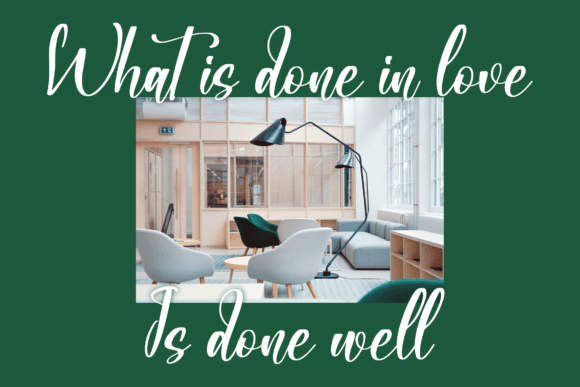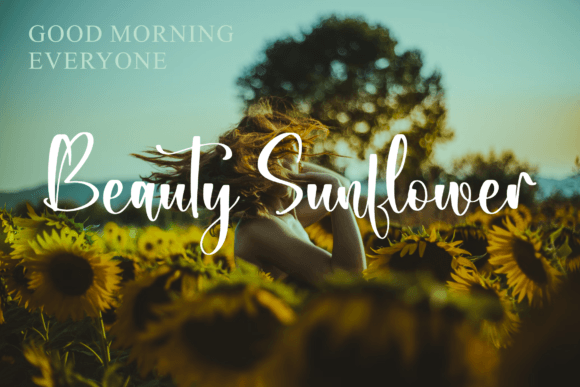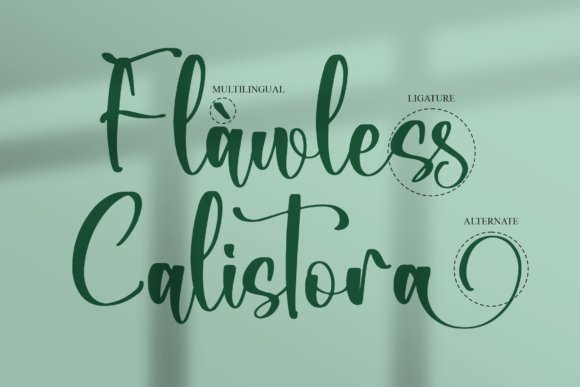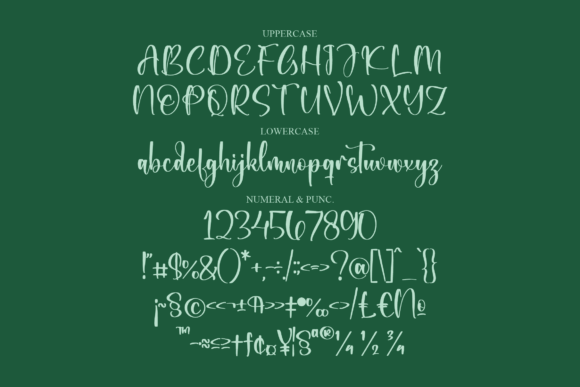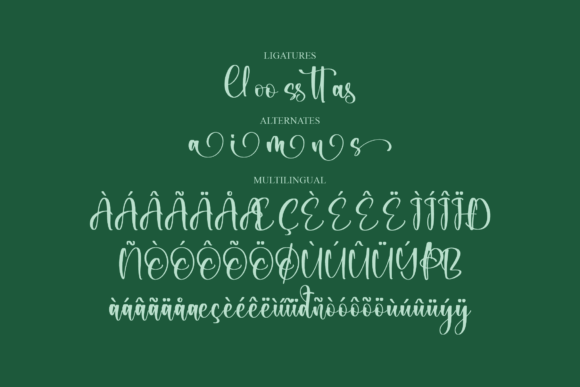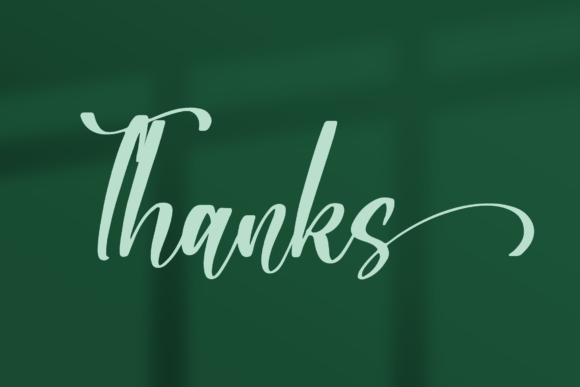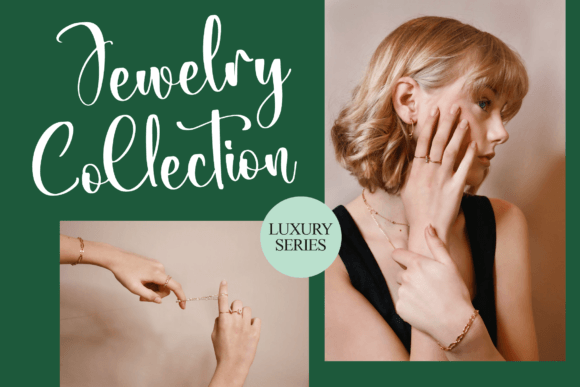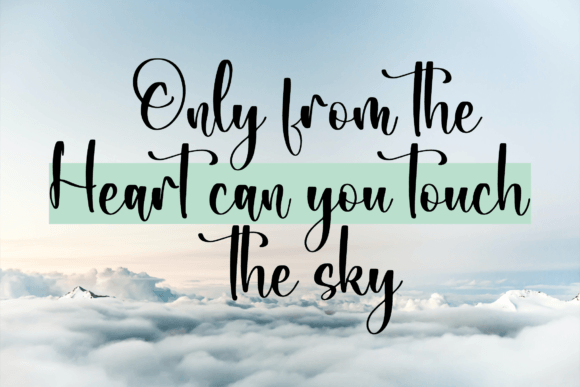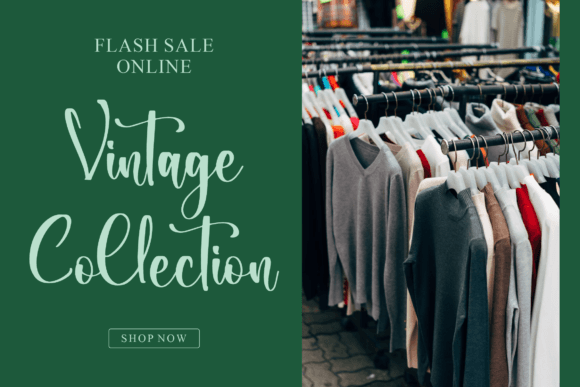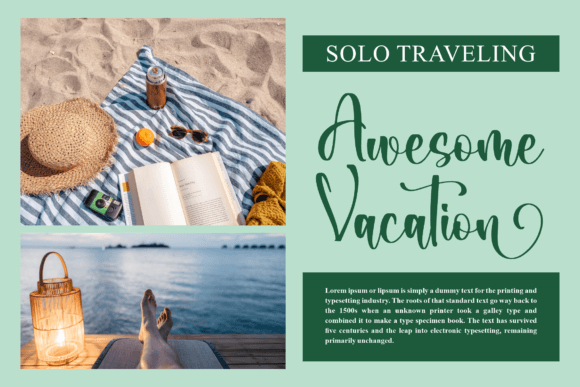
Calistora Font
About Calistora Font
“Calistora” is not just a font; it’s a modern and cool script font designed to bring a touch of beauty to a wide range of designs. This versatile typeface is perfect for projects that require a personalized and stylish flair, such as wedding invitations, thank-you cards, greeting cards, logos, and more.
The distinctive characteristics of “Calistora” make it a standout choice for various design applications. Its modern and cool script style adds a contemporary and fashionable touch to any project, ensuring that your designs are on-trend and visually appealing.
For wedding invitations, “Calistora” can bring a sense of elegance and sophistication, enhancing the overall aesthetic of the event. The font’s stylish script complements the celebratory nature of thank-you cards and greeting cards, adding a personal and chic touch to your messages.
In logo design, “Calistora” stands out by offering a unique and memorable visual identity. Its modern script style allows it to adapt to a wide range of branding needs, from fashion to lifestyle and beyond.
Whether you’re designing for print or digital platforms, “Calistora” offers a fresh and contemporary option. Its ability to convey a personalized style while maintaining a cool and modern look makes it a valuable addition to your font library.
As you incorporate “Calistora” into your projects, explore the ways in which its modern and cool script enhances the overall visual impact. Watch as it transforms your designs into stylish and eye-catching creations, leaving a lasting impression on your audience.